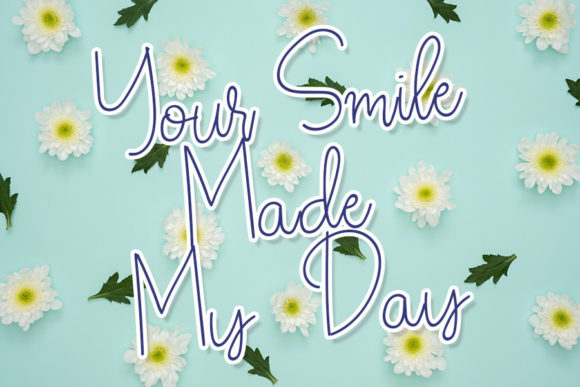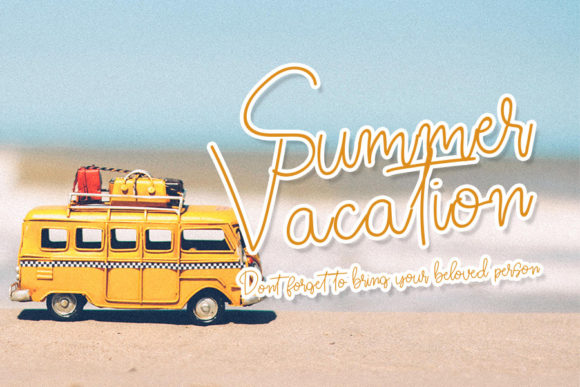
Street Butter Font
db-ku.com - Script & Handwritten -- Street Butter is a charming and slim handwriting font, that exudes elegance and class. This font was particularly crafted for those who need a beautiful and refreshing look to their designs.